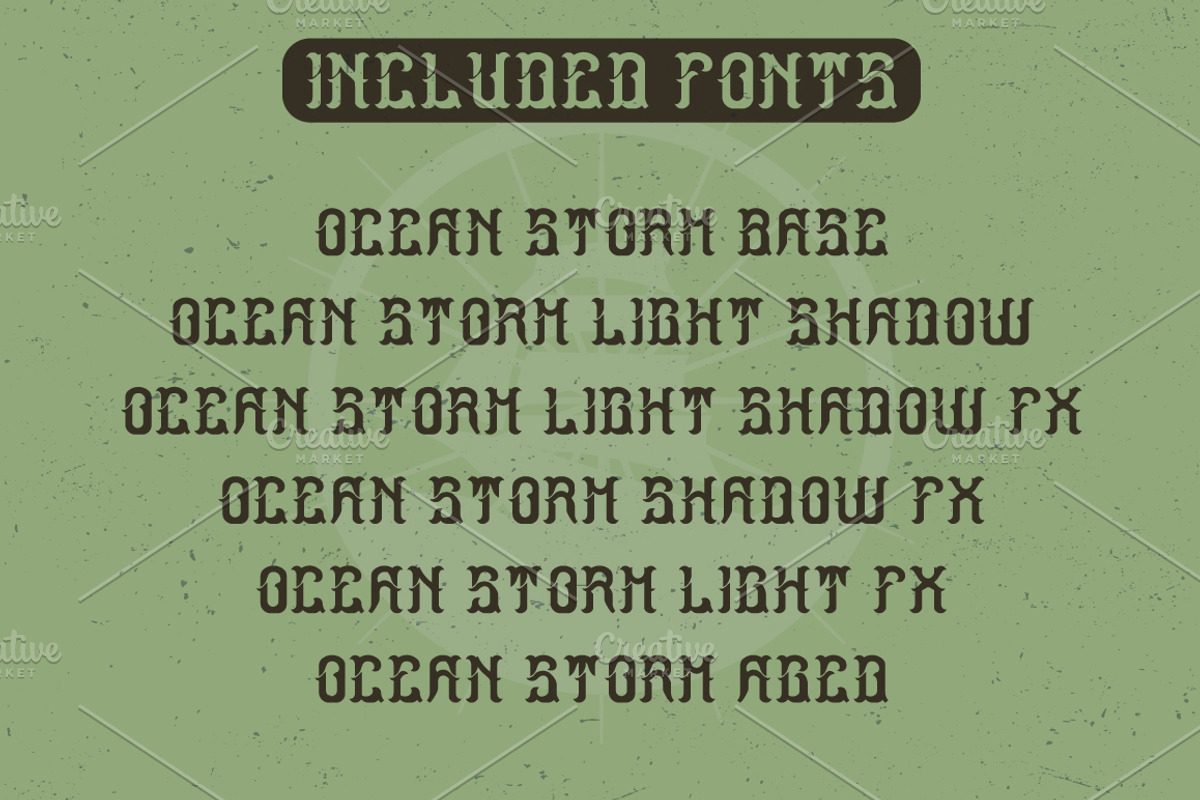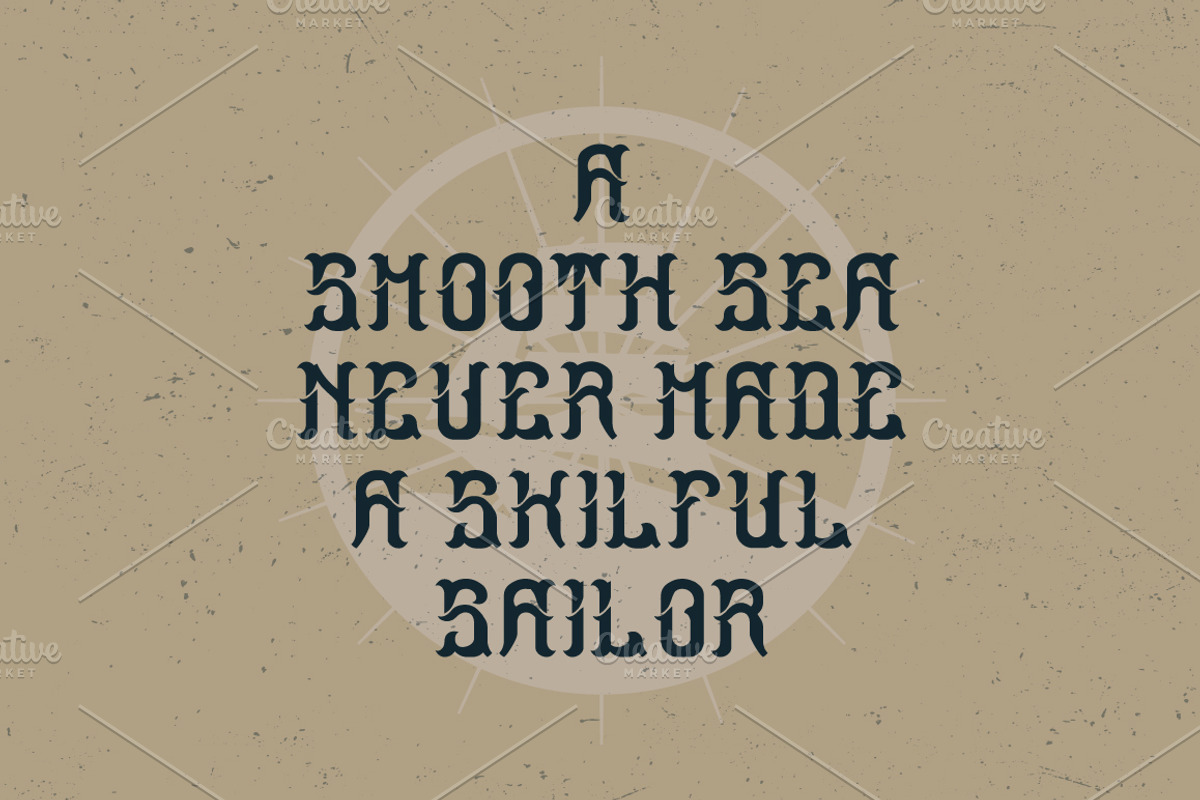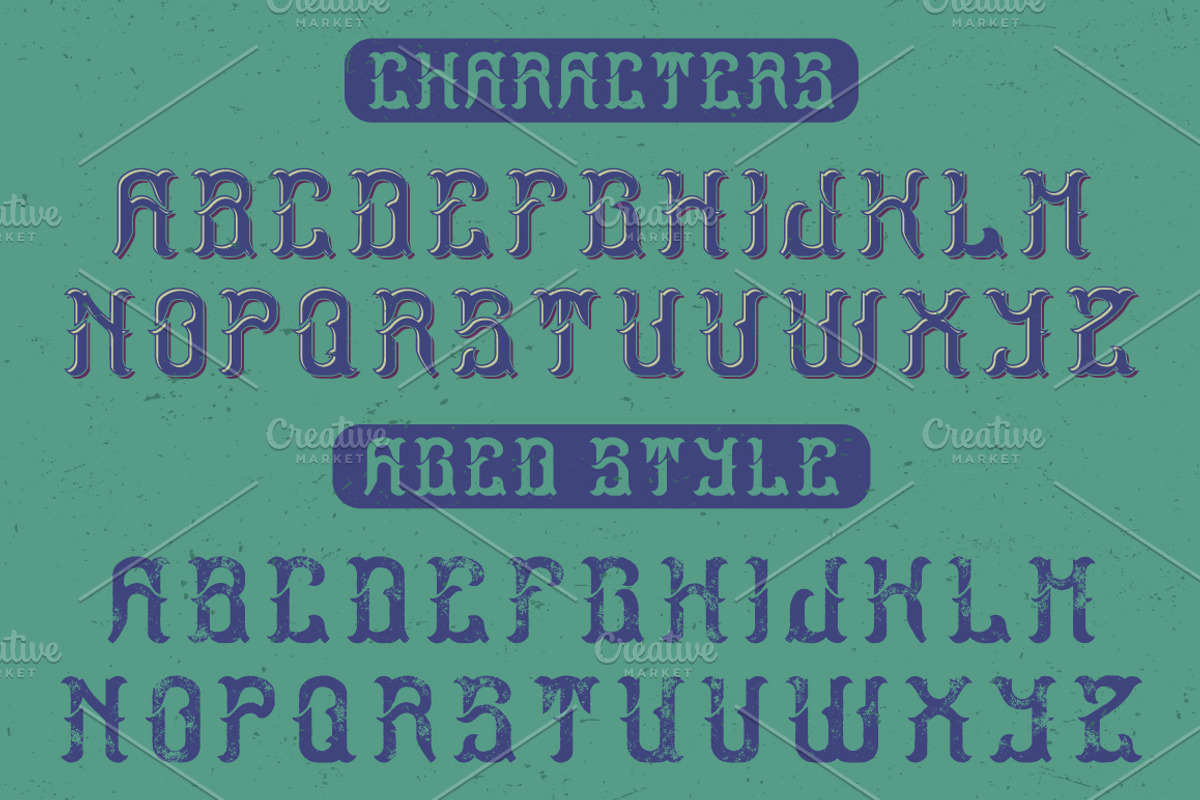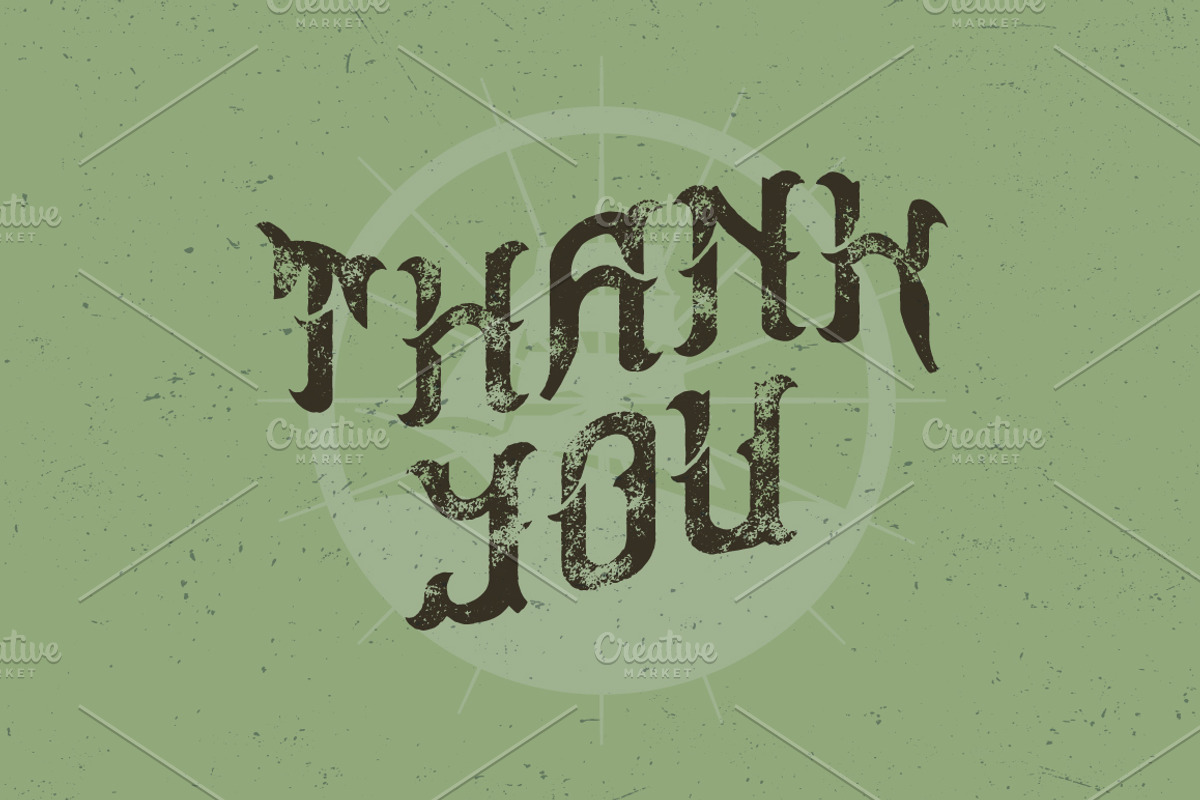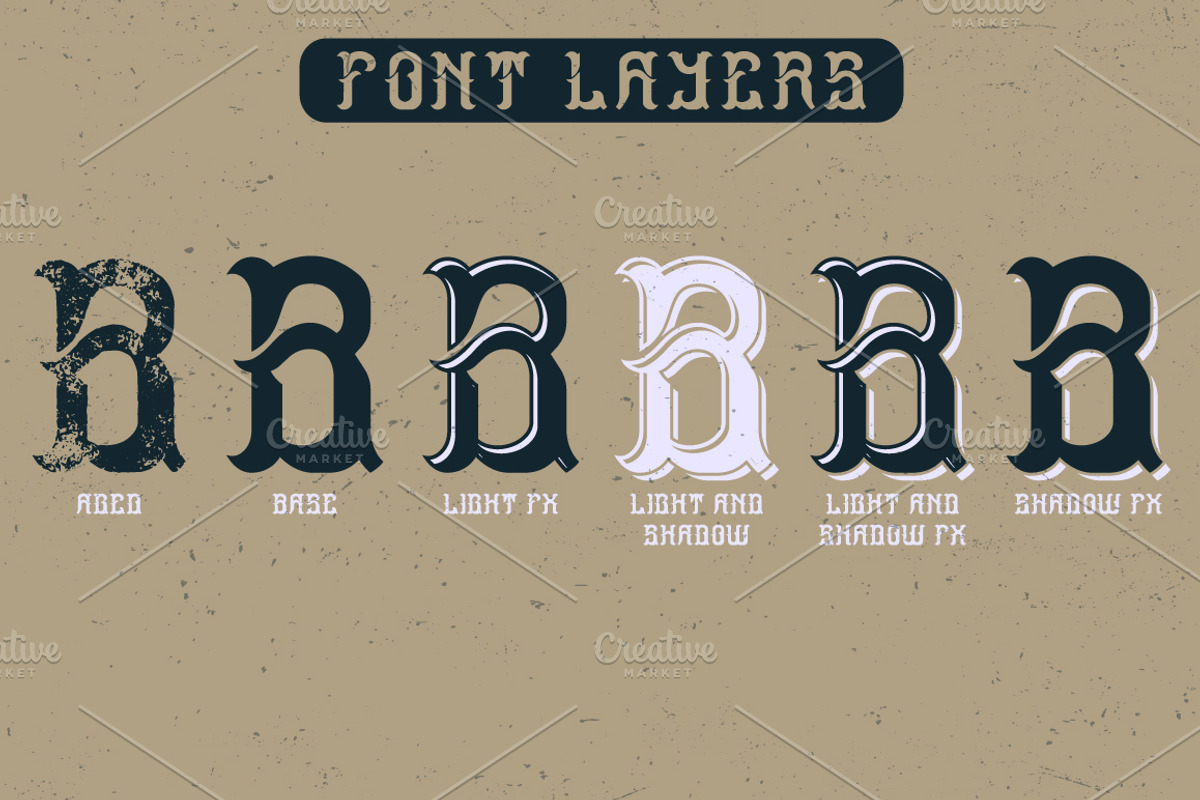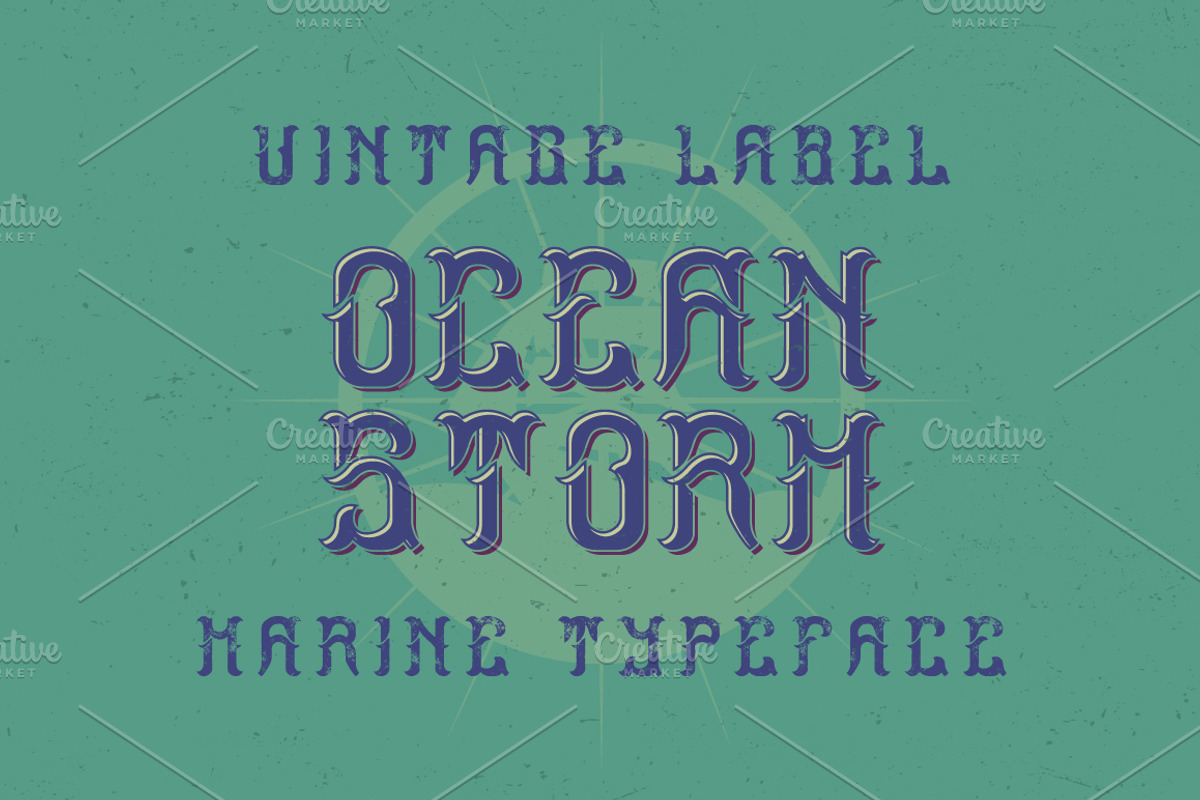
Ocean Storm label font
Introducing a vintage label typeface named "Hipster". It's made in marine and vintage label style. Typeface looks great on any label designs and t-shirts.
5 fonts in complect with special effects + aged version
You can mix color of base font, light and shadow effect (look at 5th screenshot)
Ocean Storm label font by Heatherinsane fits naturally into Branding, posters, packaging, typography.